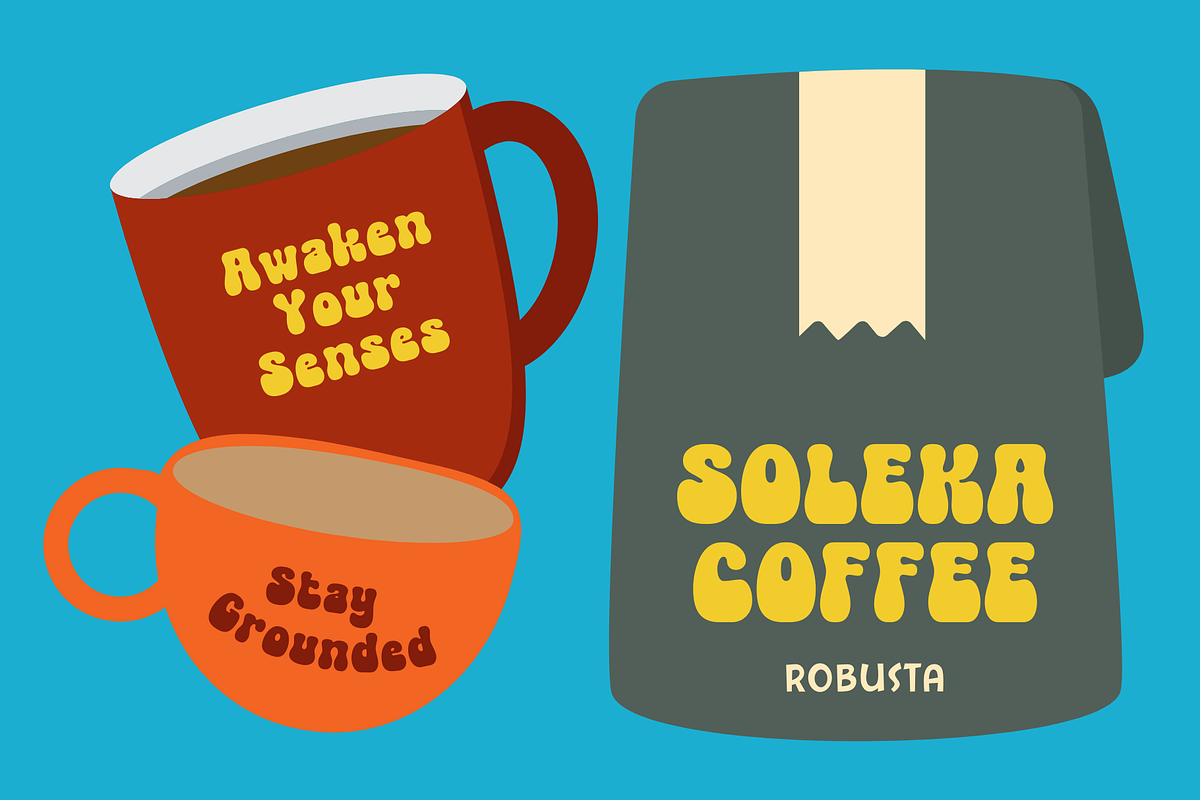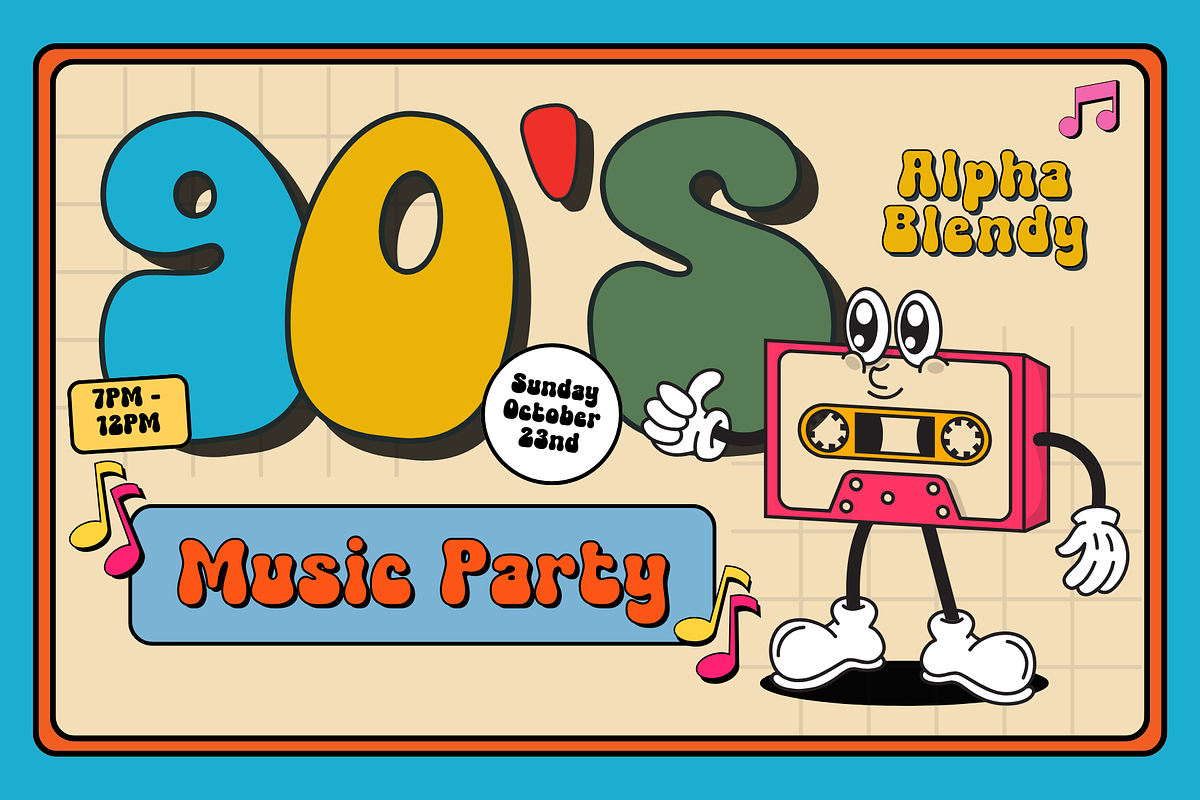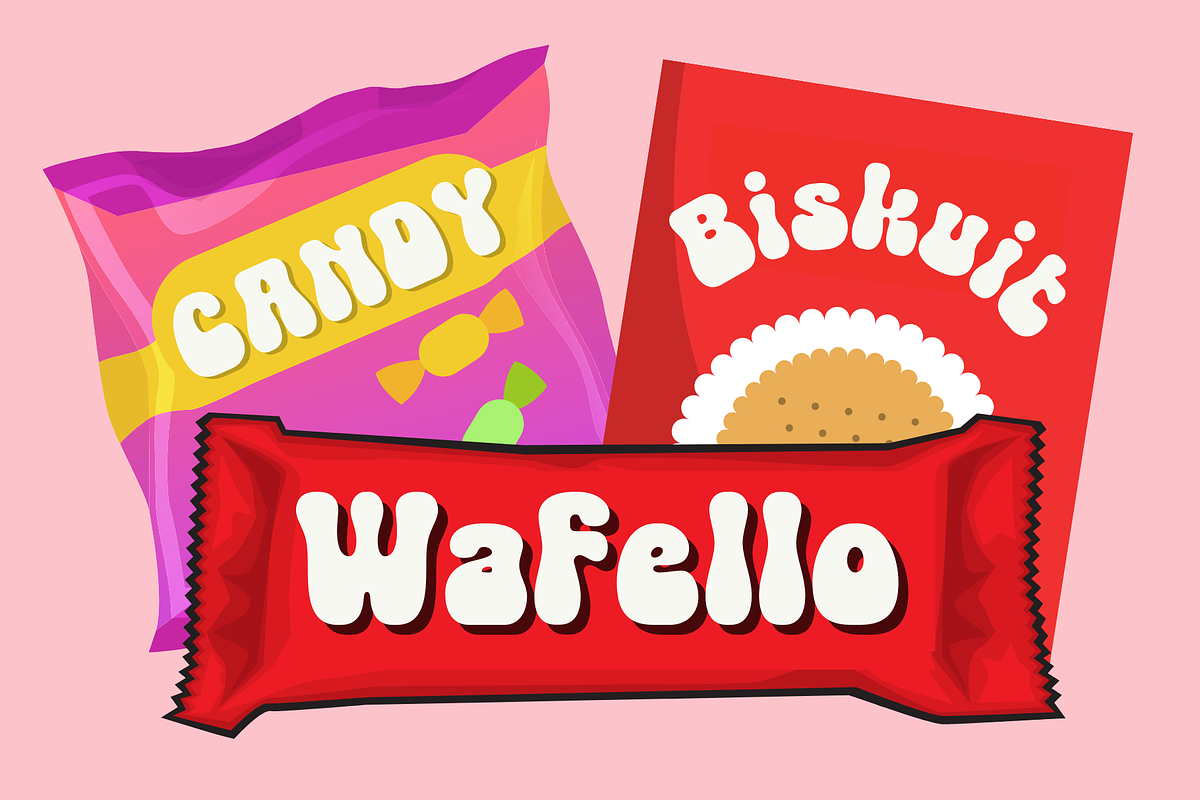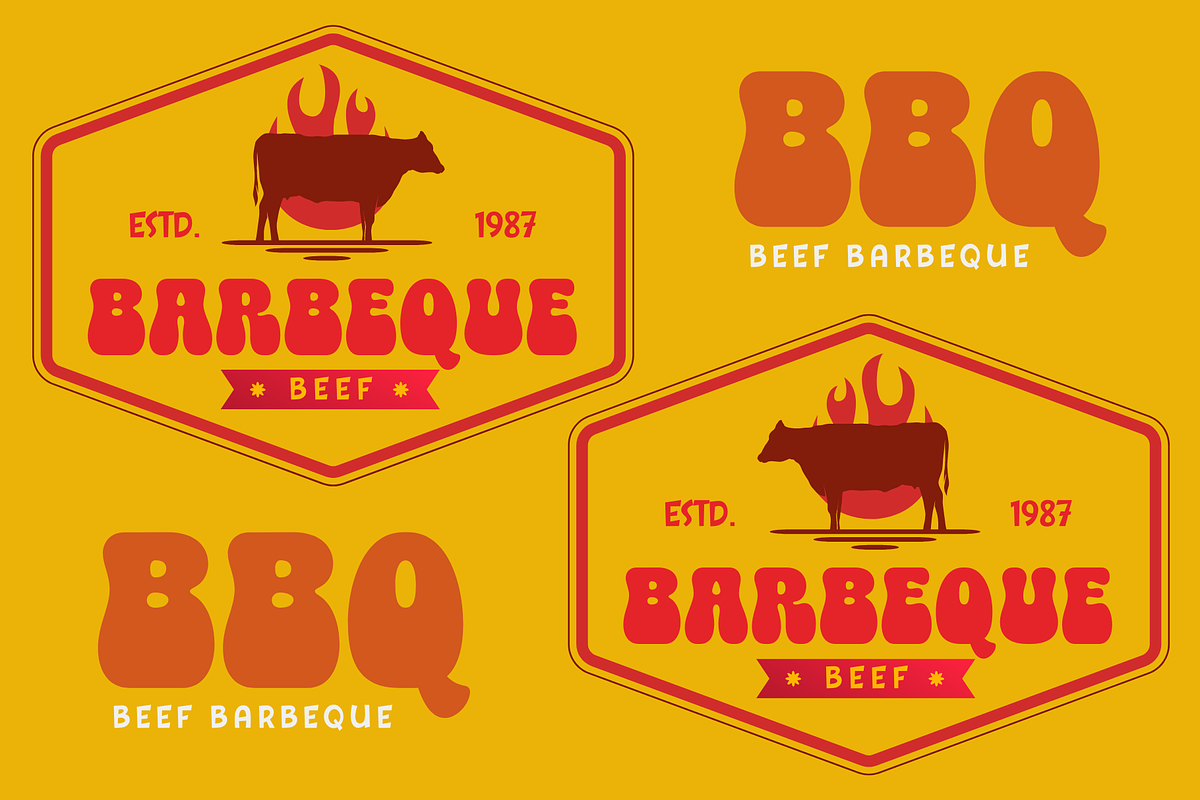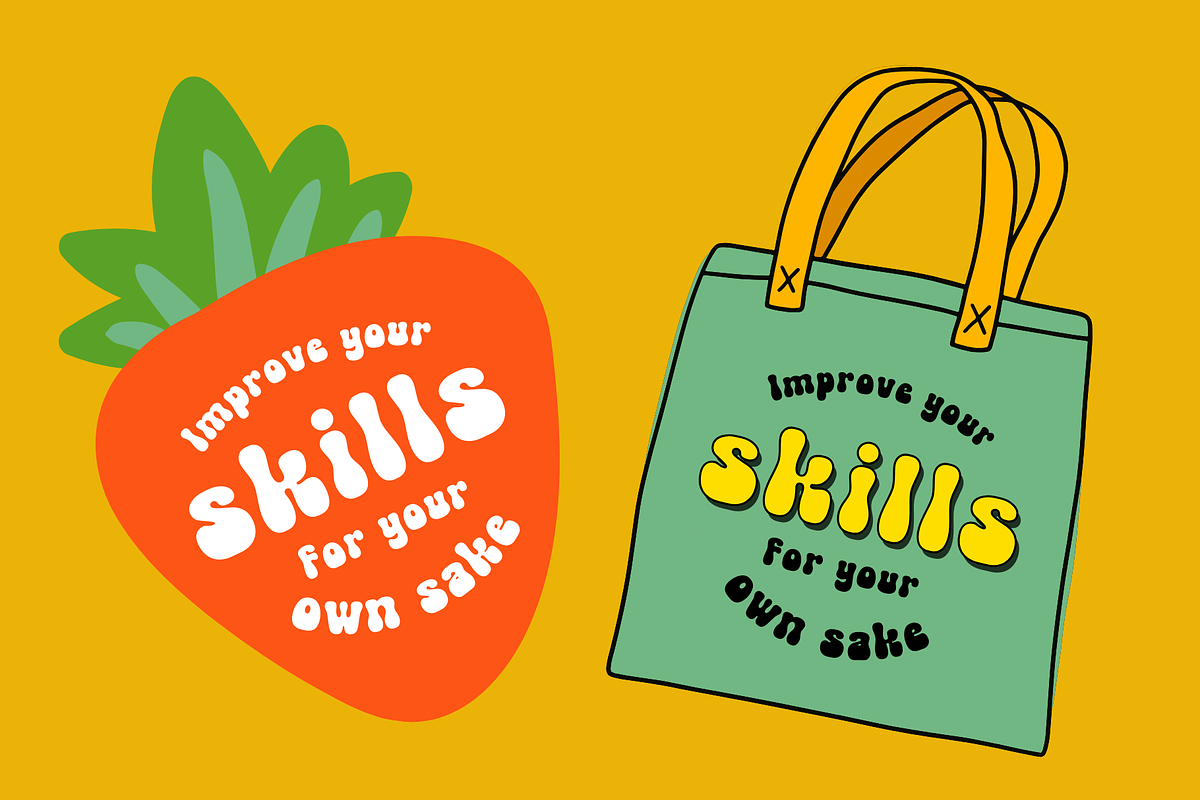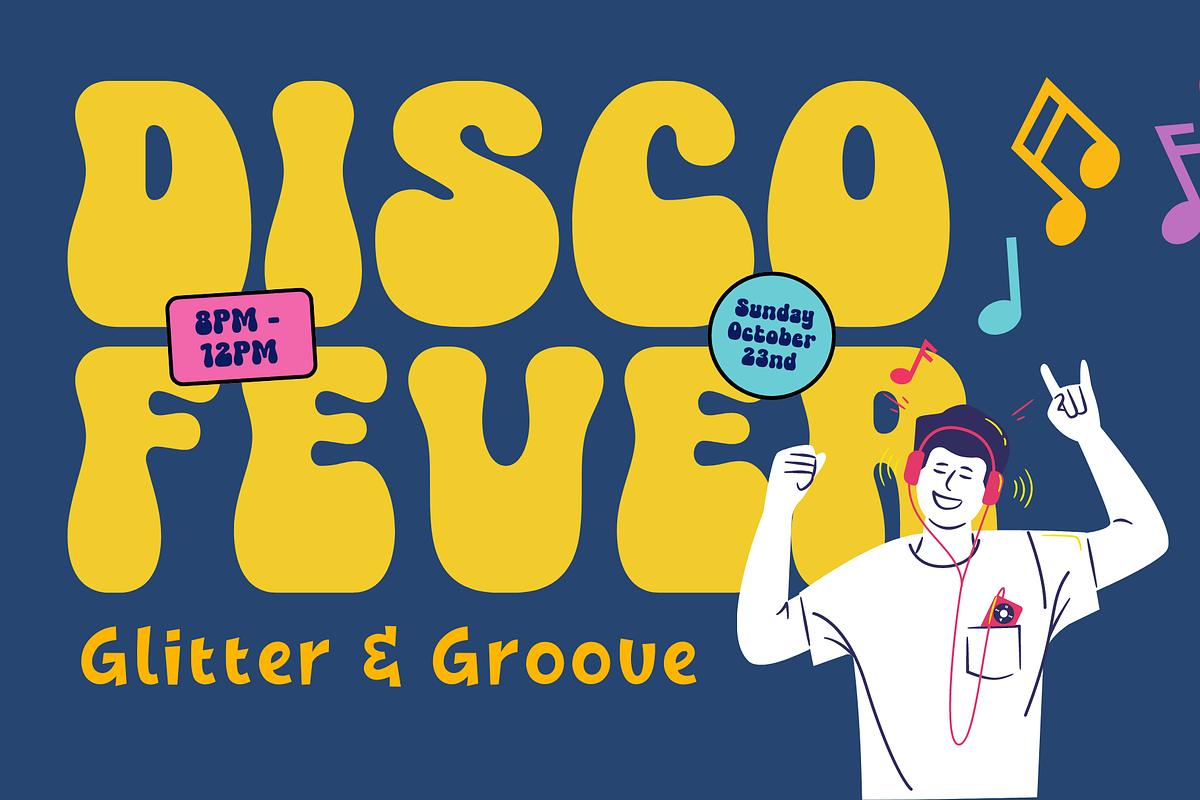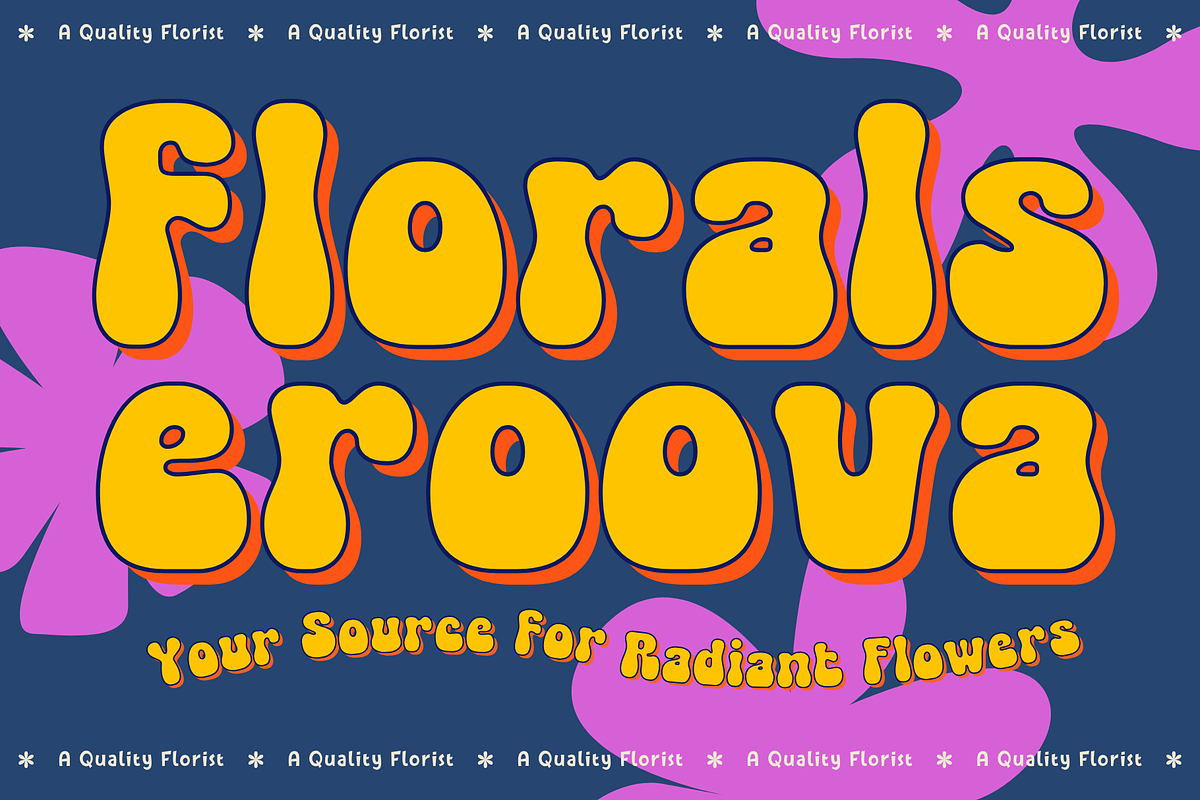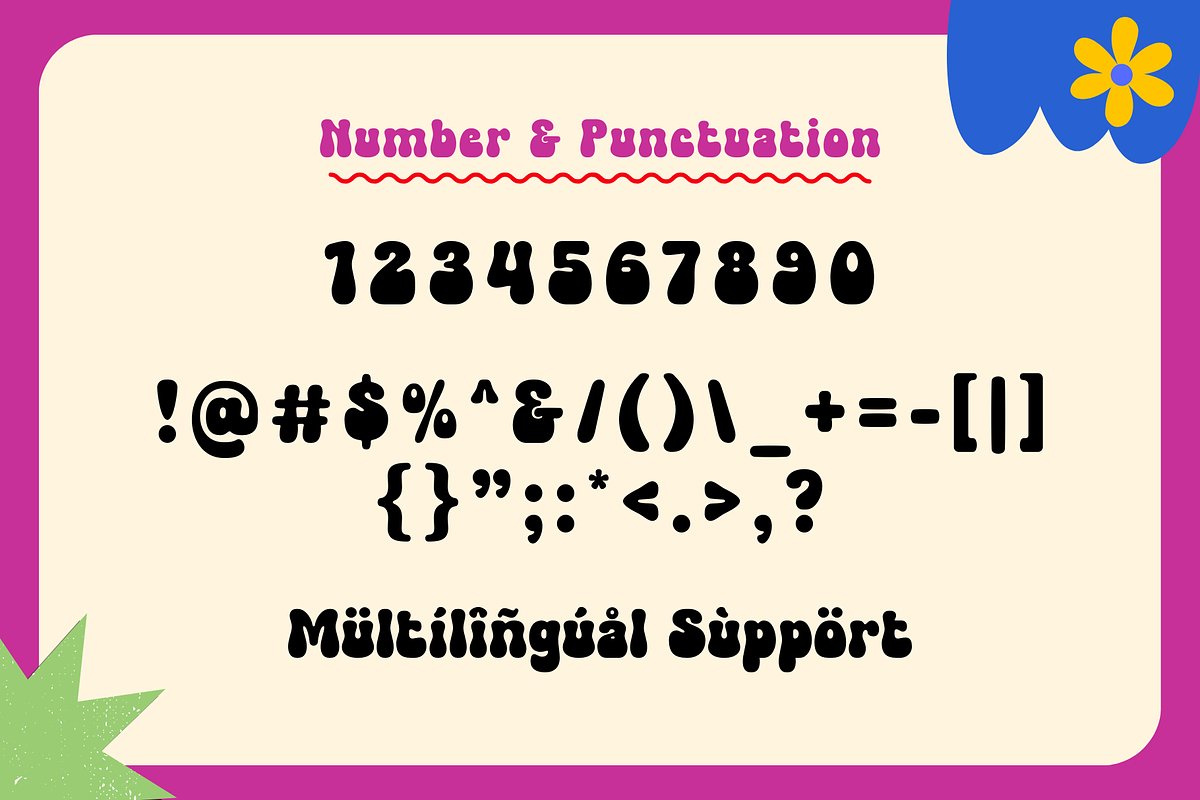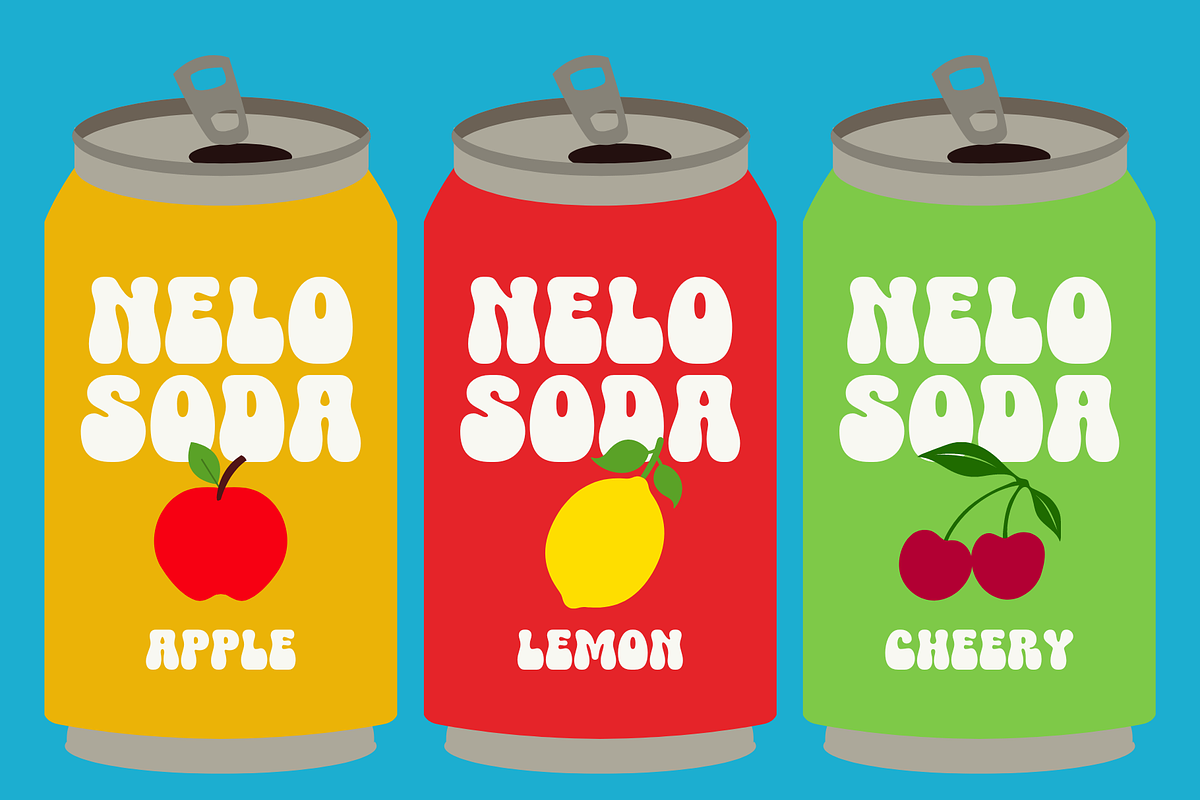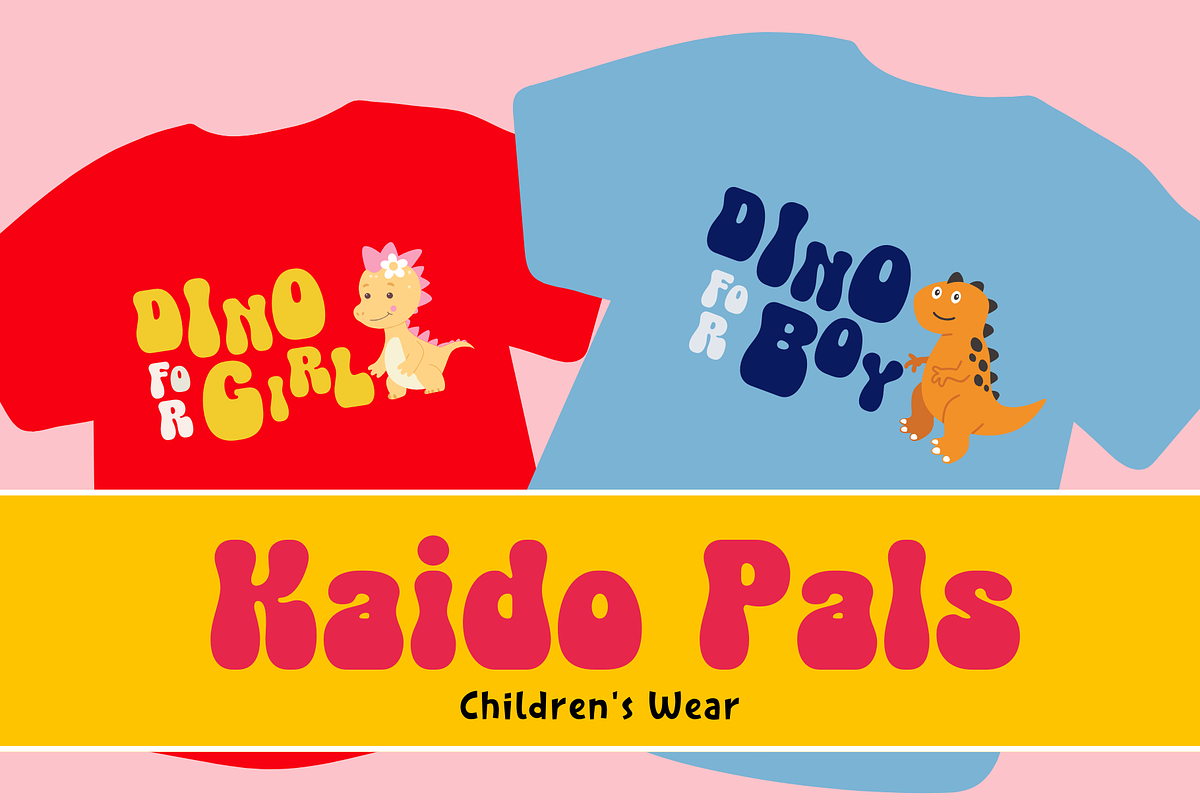
Retro Capsule - Retro Font
Retro Capsule is a playful retro font inspired by vintage capsule designs. Its bold, rounded shapes bring a nostalgic feel to any project, perfect for adding a fun and quirky touch to posters, logos, branding, and more. With its unique blend of retro and modern elements, Retro Capsule adds a pop of personality to your design work!